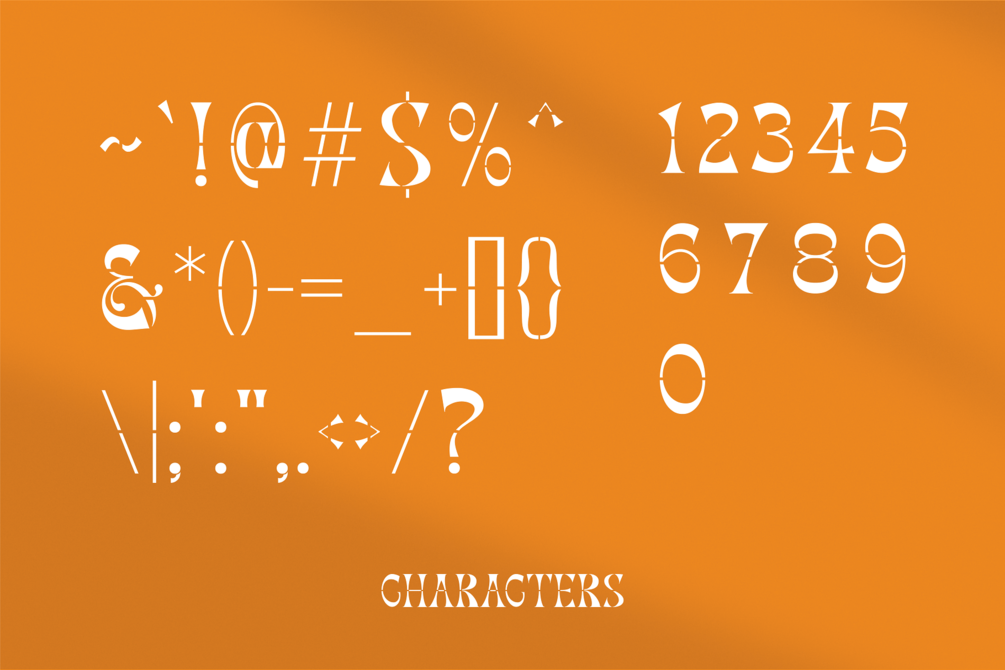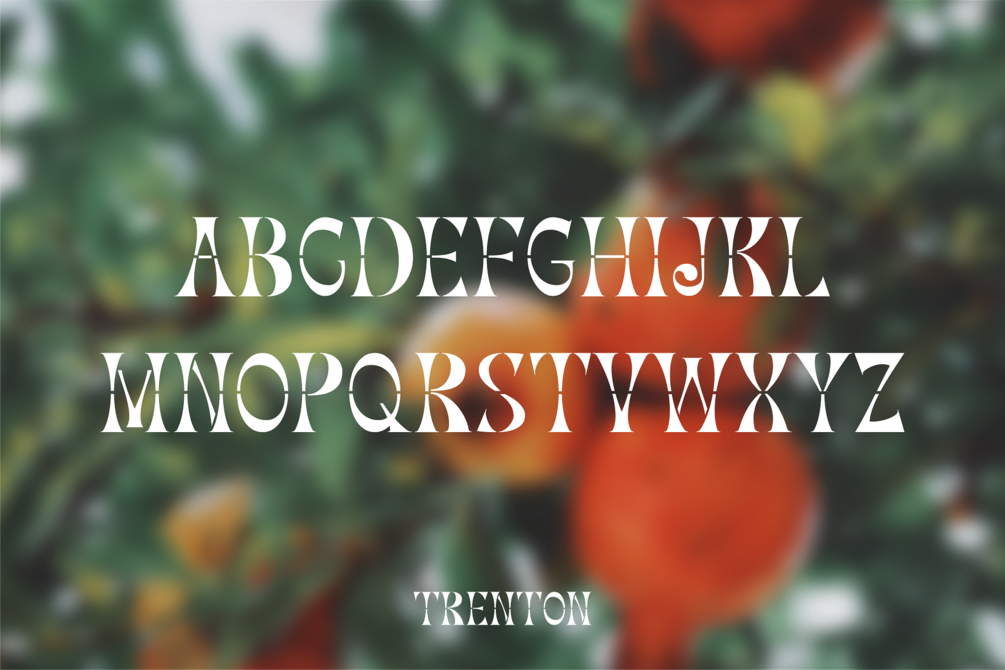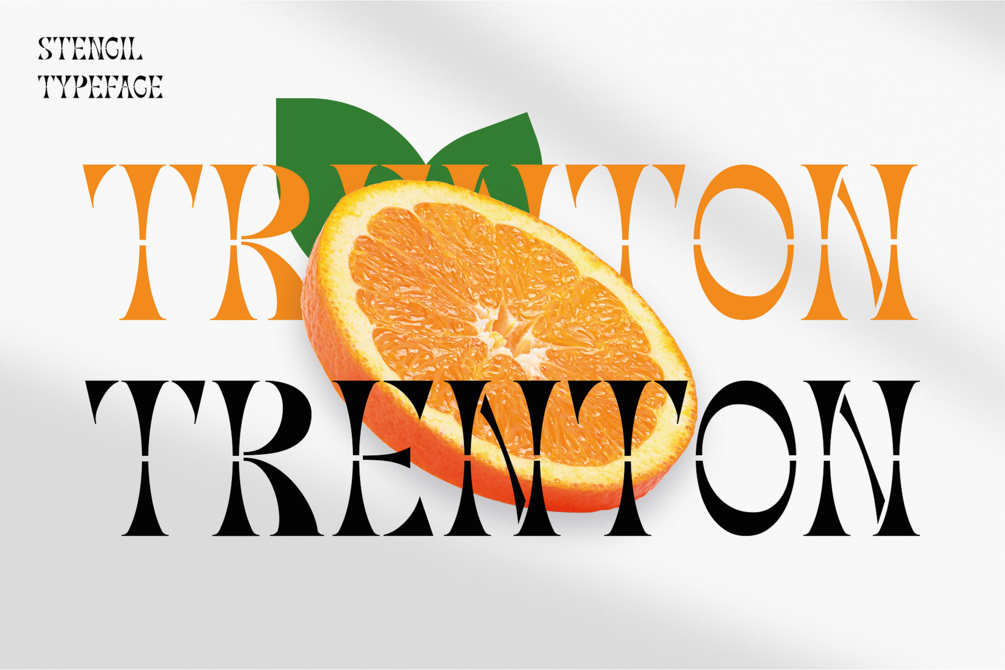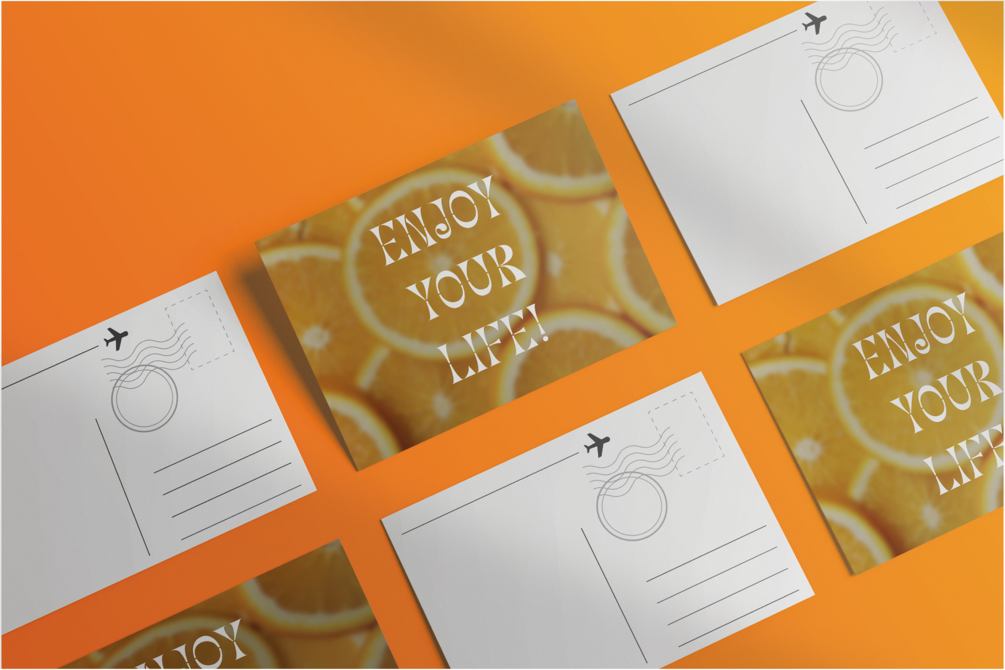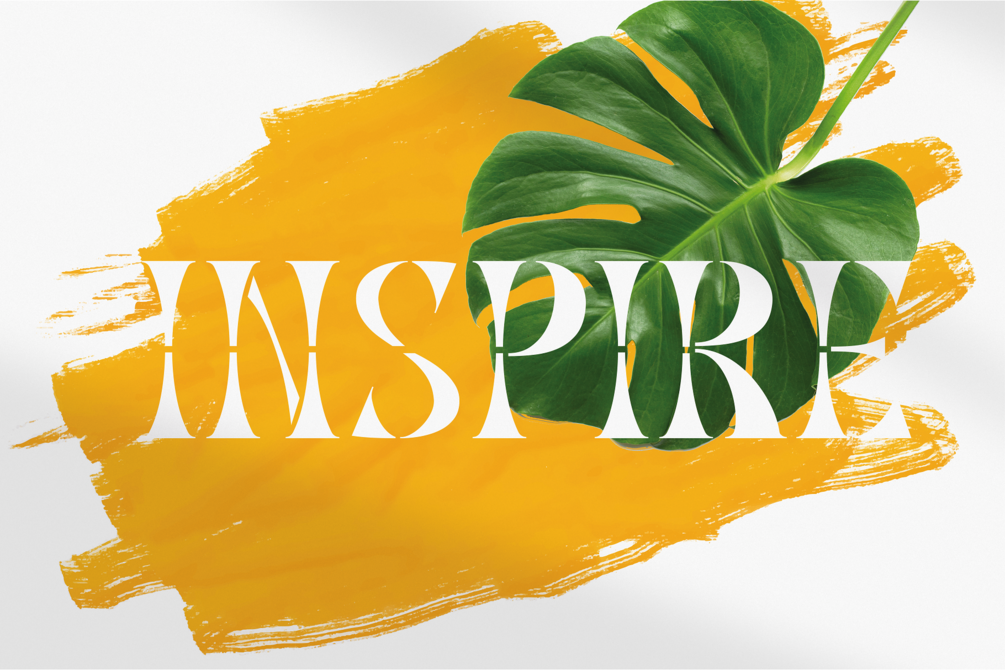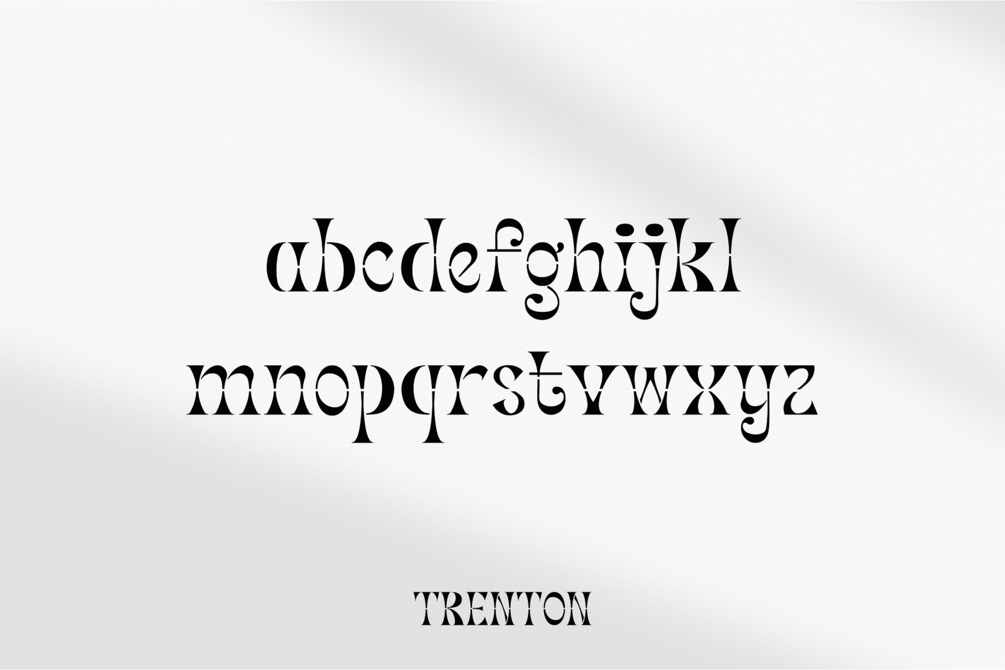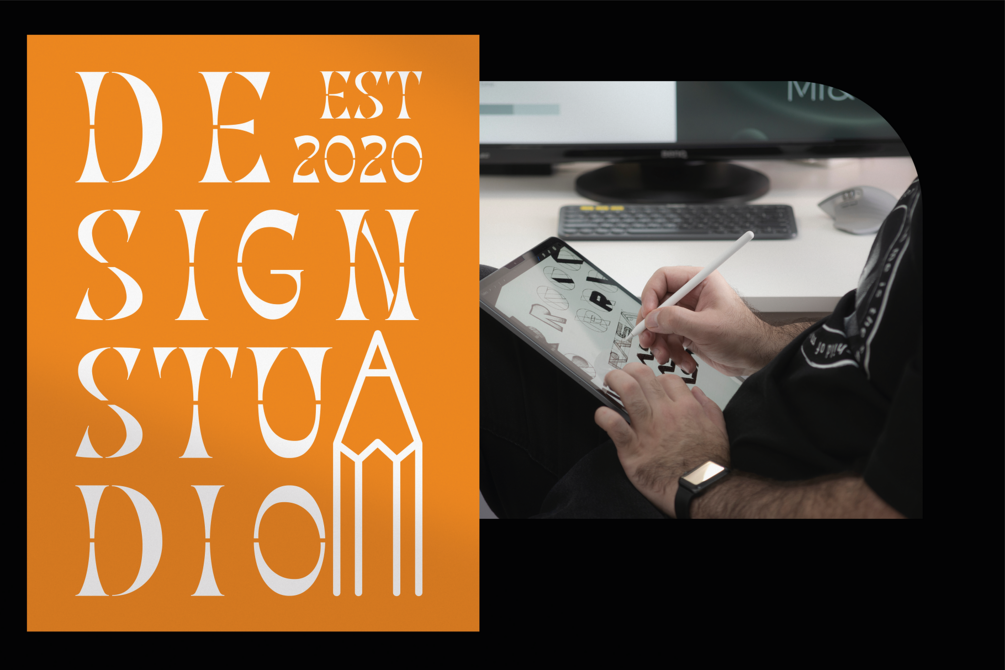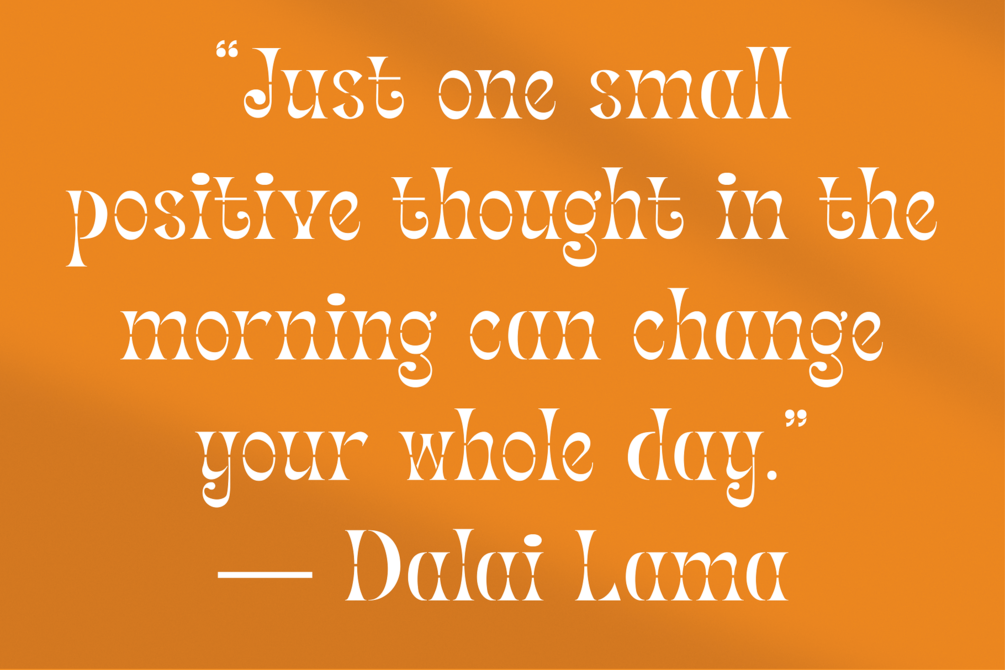
Trenton - Stencil Display
Trenton is a stencil serif typeface. This display font is beautiful and legible in small or large sizes. You can use it for logos, editorials, fashion, sports, blogs, advertising, invitations, posters, quotes, book covers, stationery, and more. If your goal is to create a unique and versatile stencil based design, then Trenton is for you.